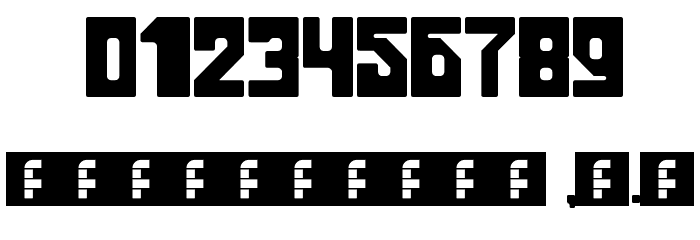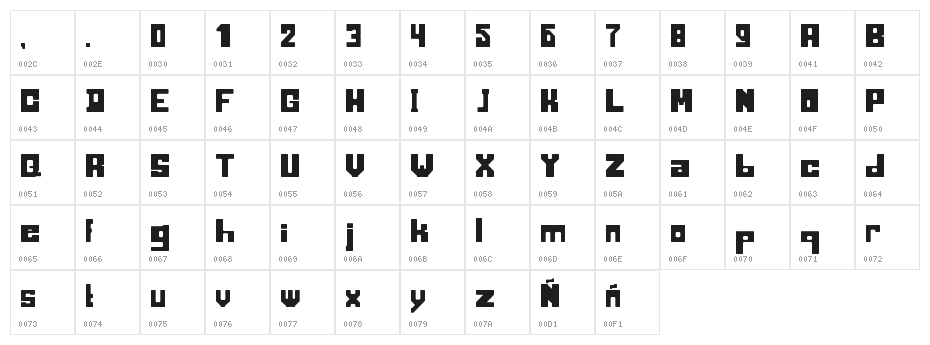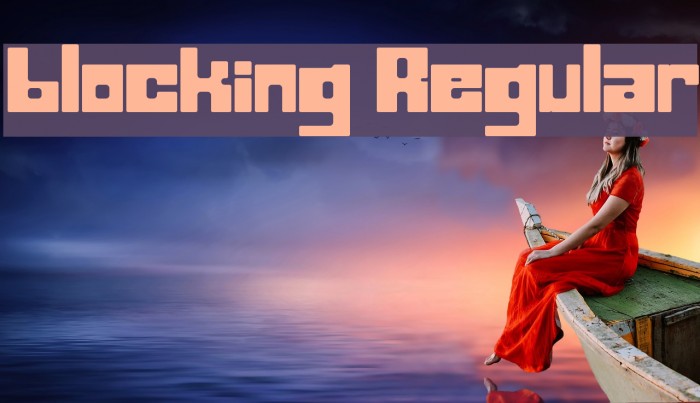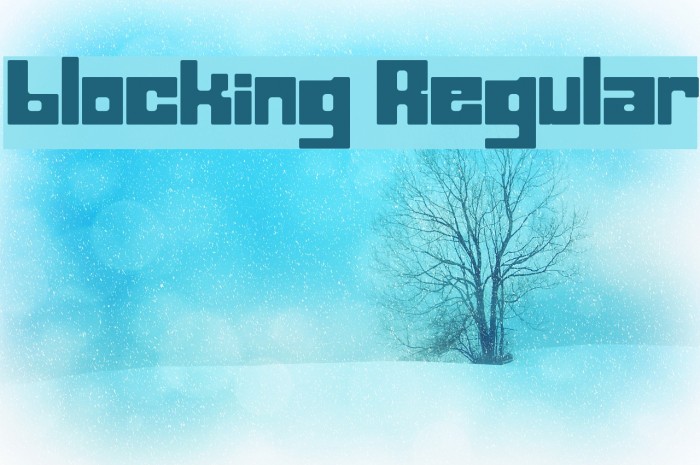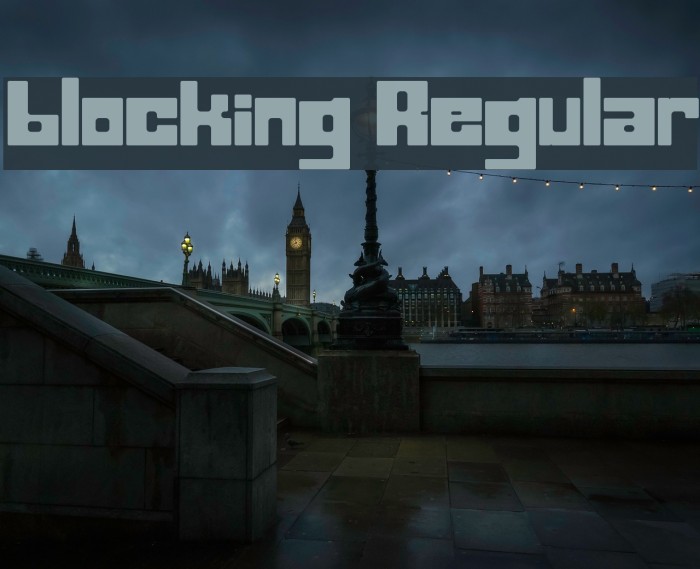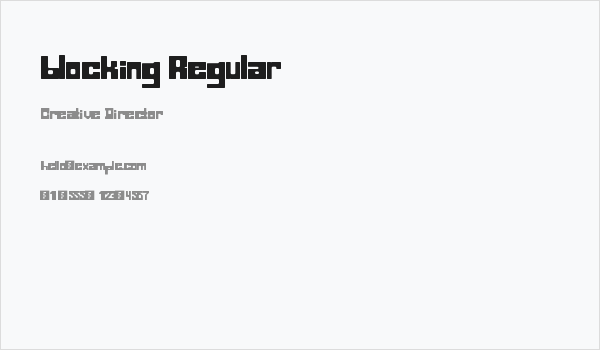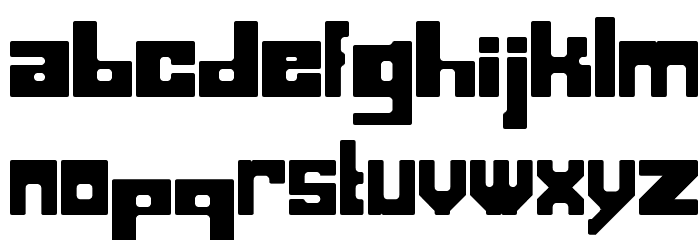
blocking Regular Font
blocking Regular Description
This font features a bold, geometric design with a strong, block-like appearance. The characters are uniformly thick, creating a cohesive and impactful visual presence. The uppercase and lowercase letters maintain a consistent style, with sharp angles and straight lines dominating the design. The numerals and special characters follow the same aesthetic, ensuring uniformity across all elements. This font's robust and solid structure makes it ideal for projects that require a strong visual impact.
| Proposed Projects | Ideal for posters, headlines, logos, and branding materials that require a bold and impactful visual statement. |